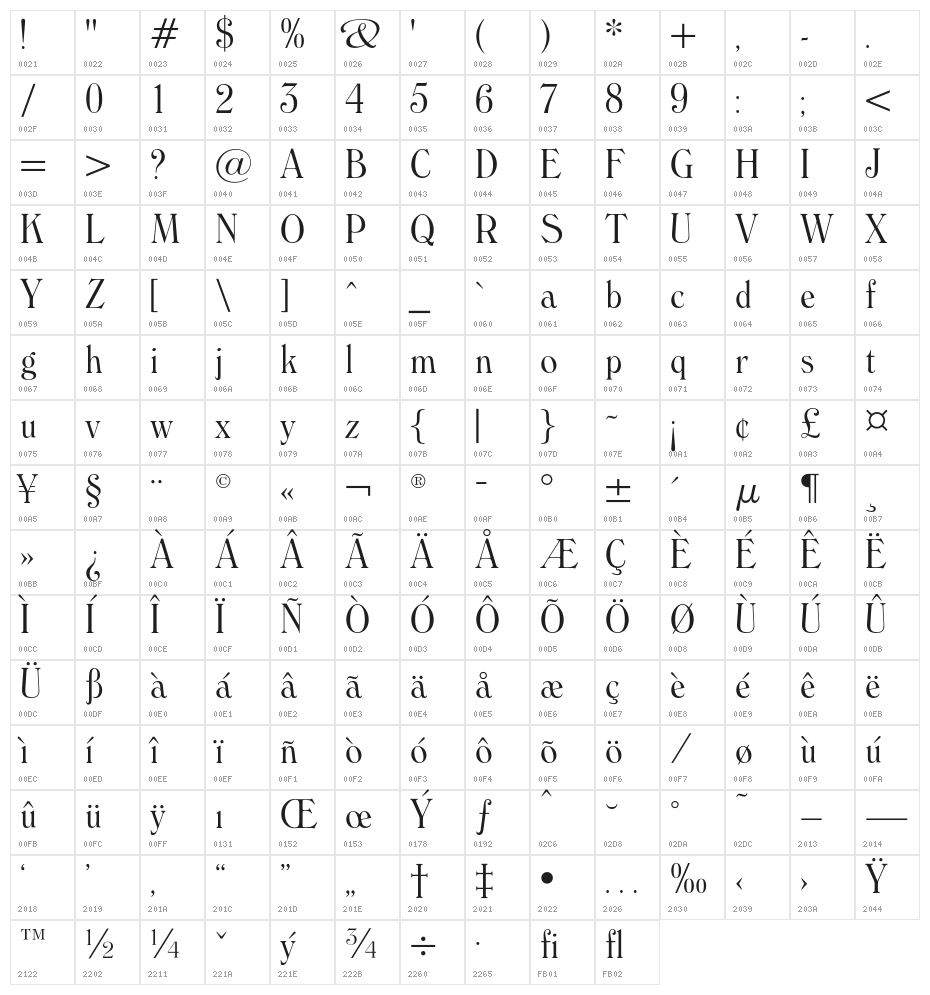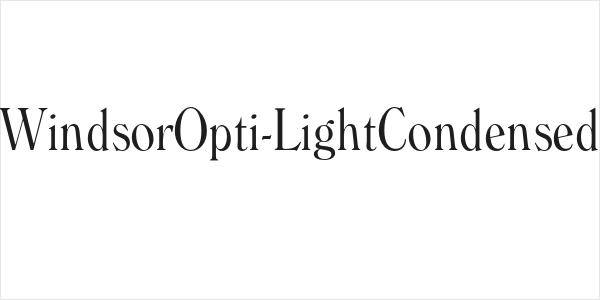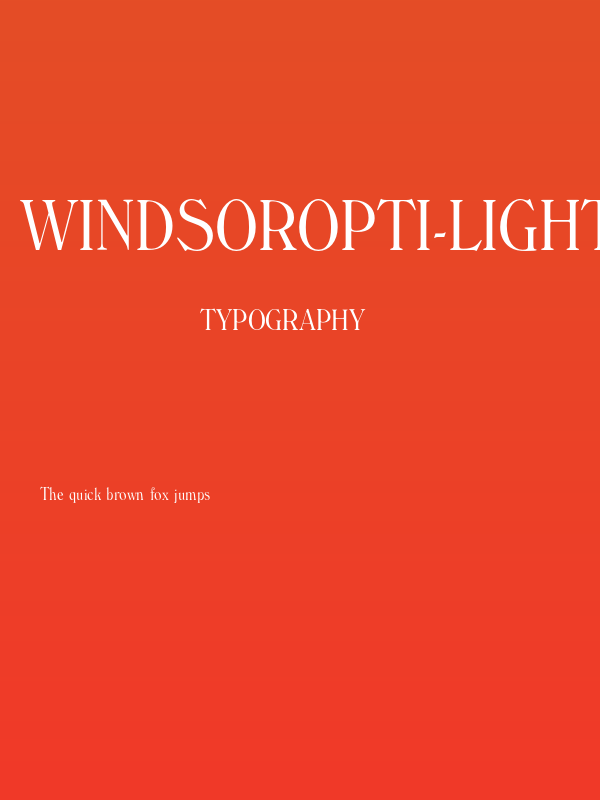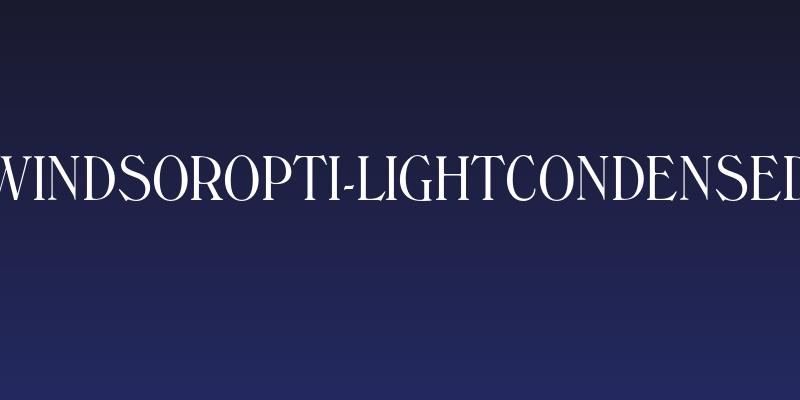
WindsorOpti-LightCondensed Font
WindsorOpti-LightCondensed Description
This font exhibits a classic serif style with a light and condensed appearance. The characters are elegantly crafted with a subtle contrast between thick and thin strokes, giving it a refined and sophisticated look. The uppercase letters are tall and slightly narrow, while the lowercase letters maintain a consistent height, enhancing readability. The numerals are well-proportioned, and the special characters are distinct and clear. This font's overall design is both timeless and versatile, making it suitable for a variety of applications.
| Proposed Projects | Ideal for editorial design, book covers, formal invitations, and branding projects that require a touch of elegance. |